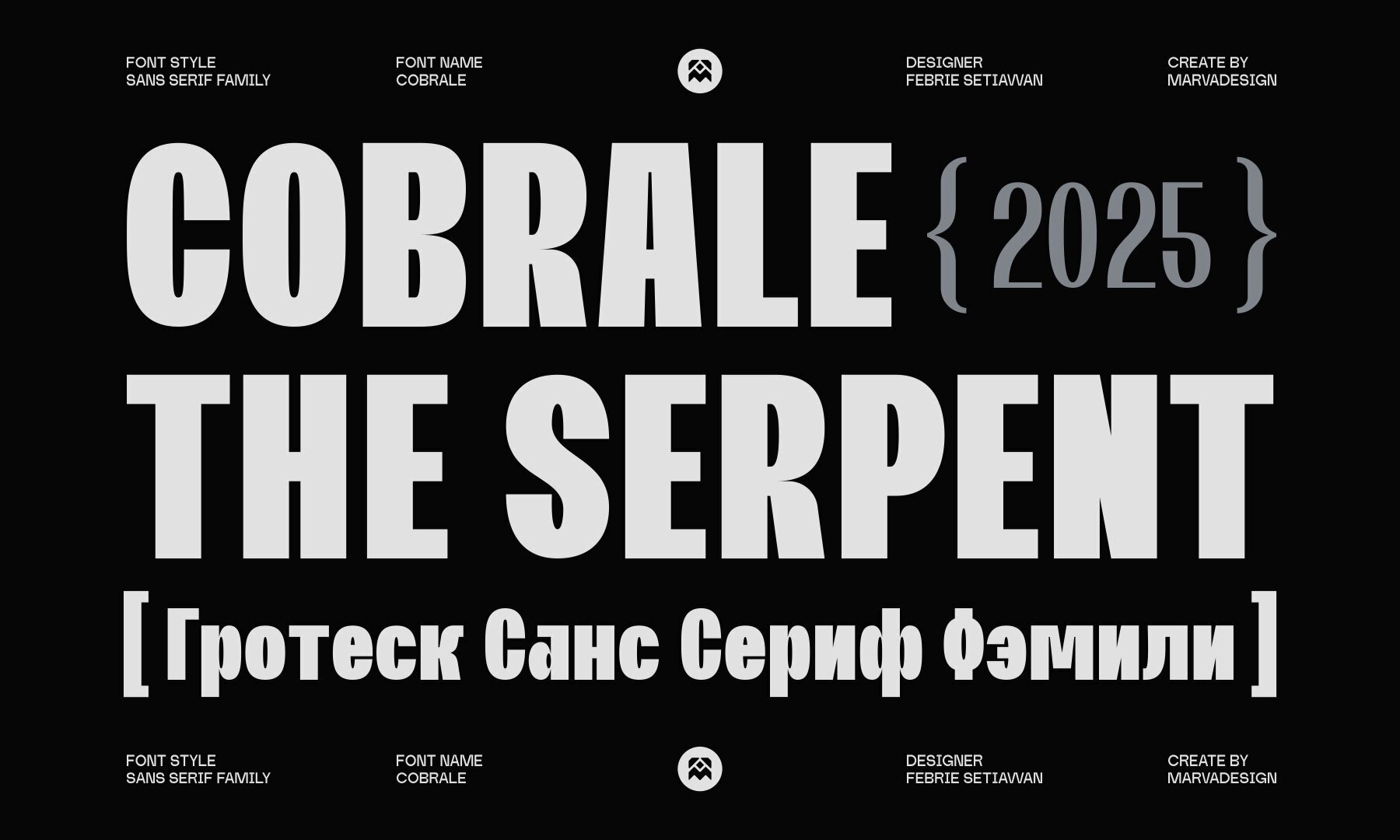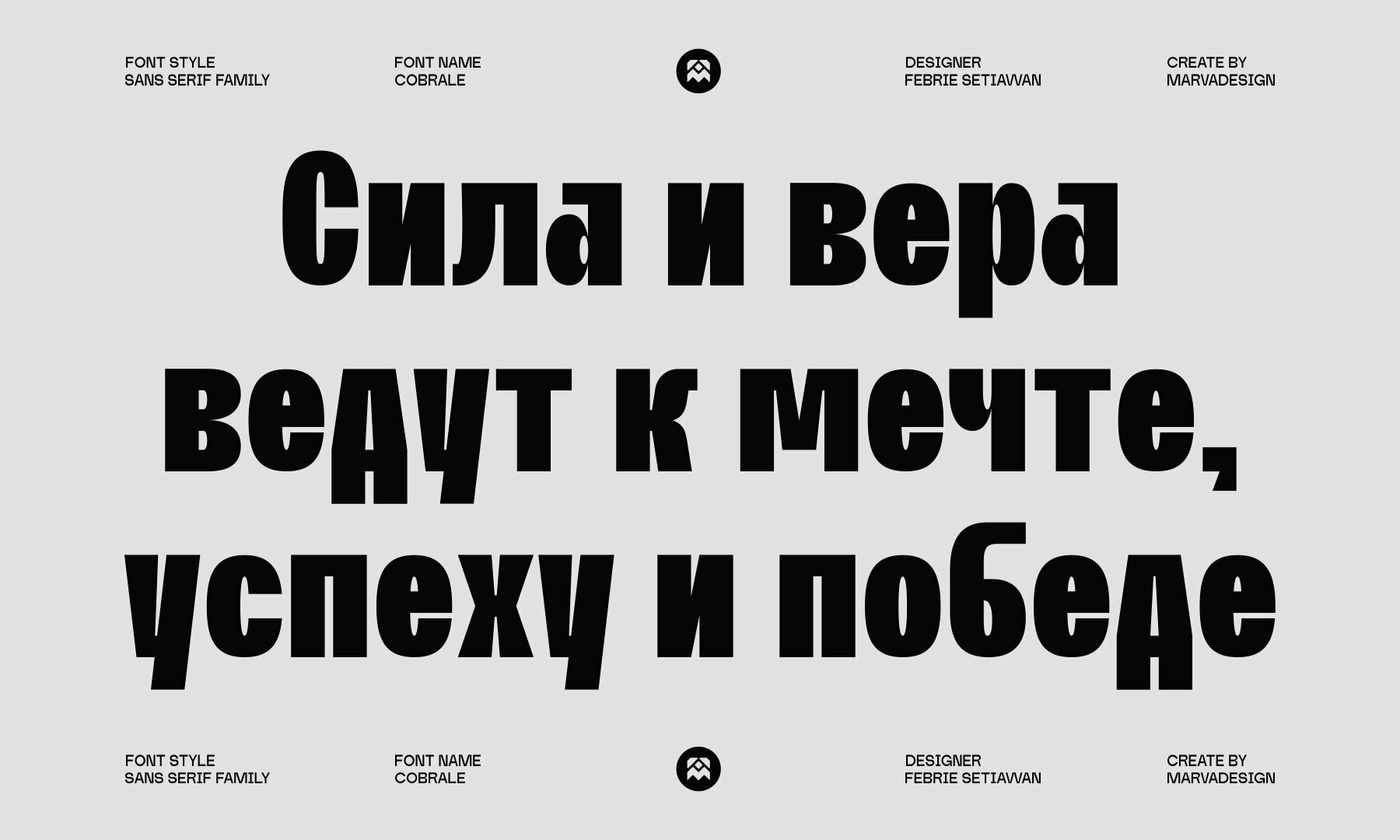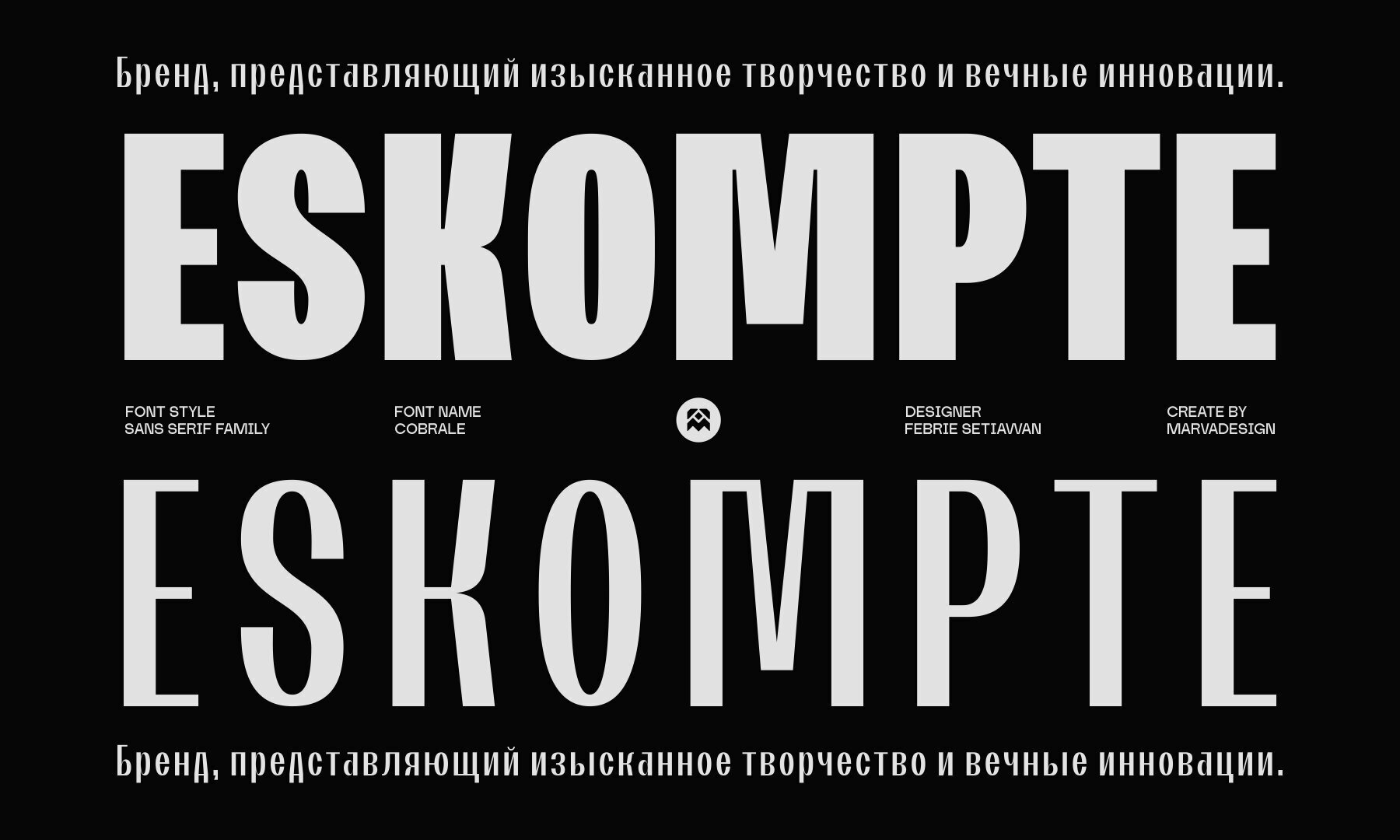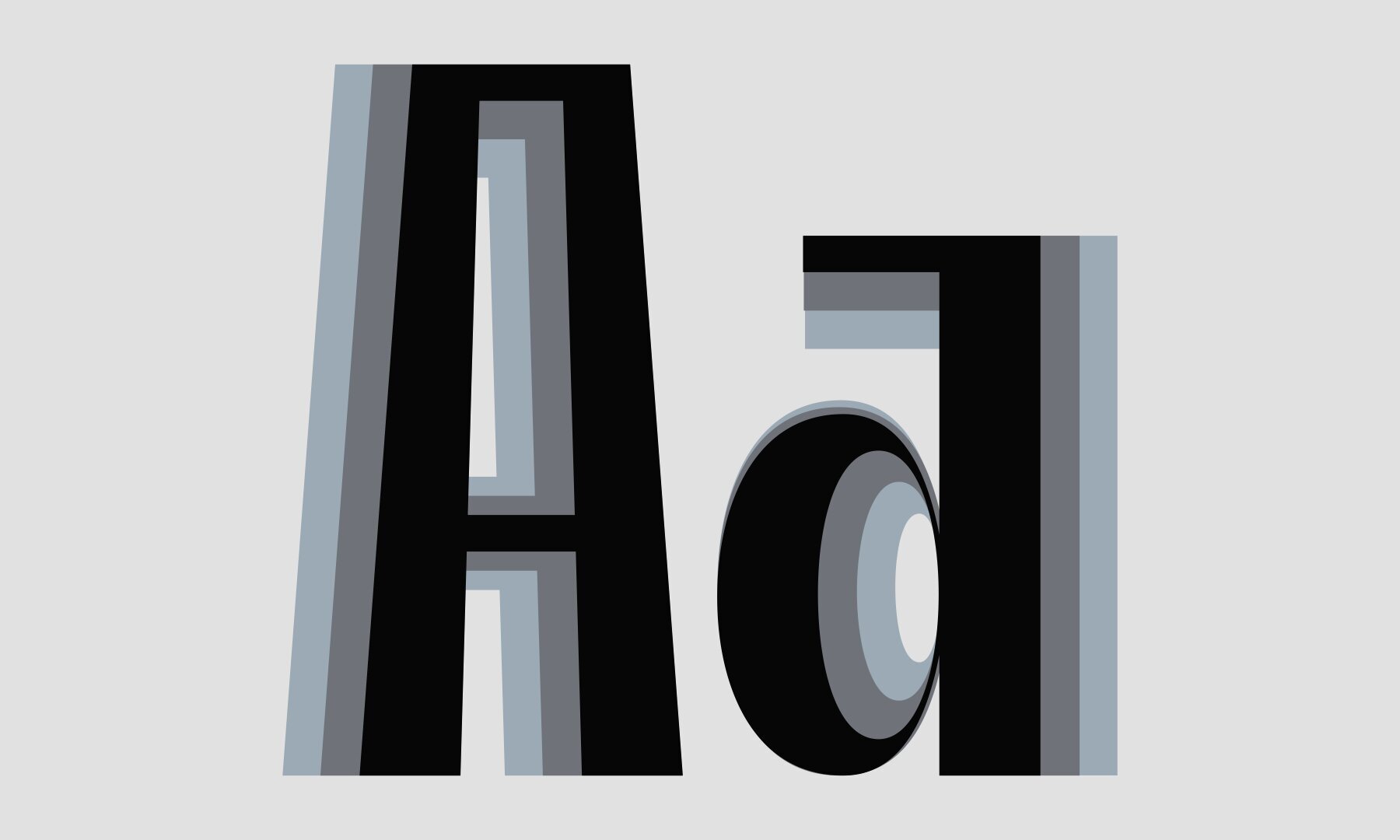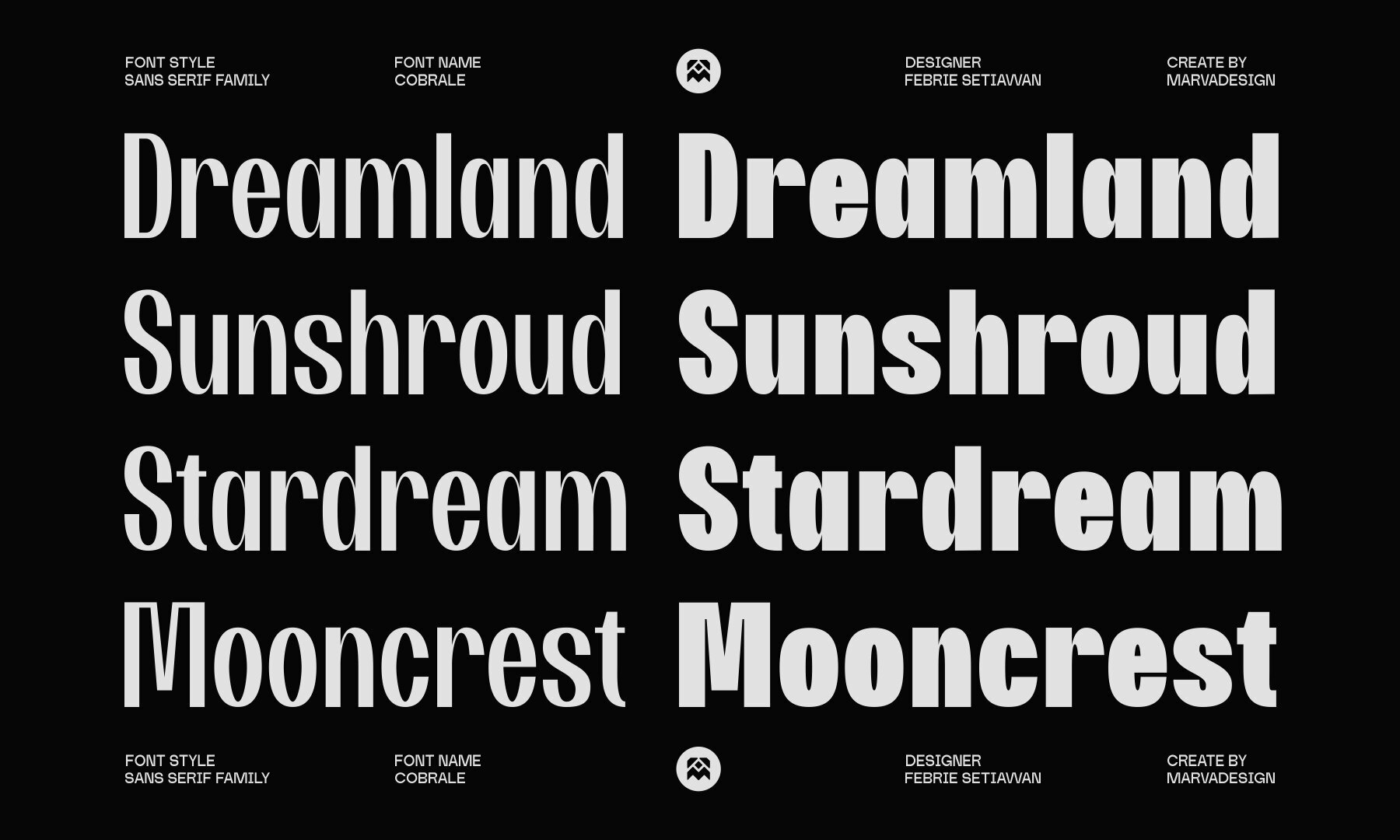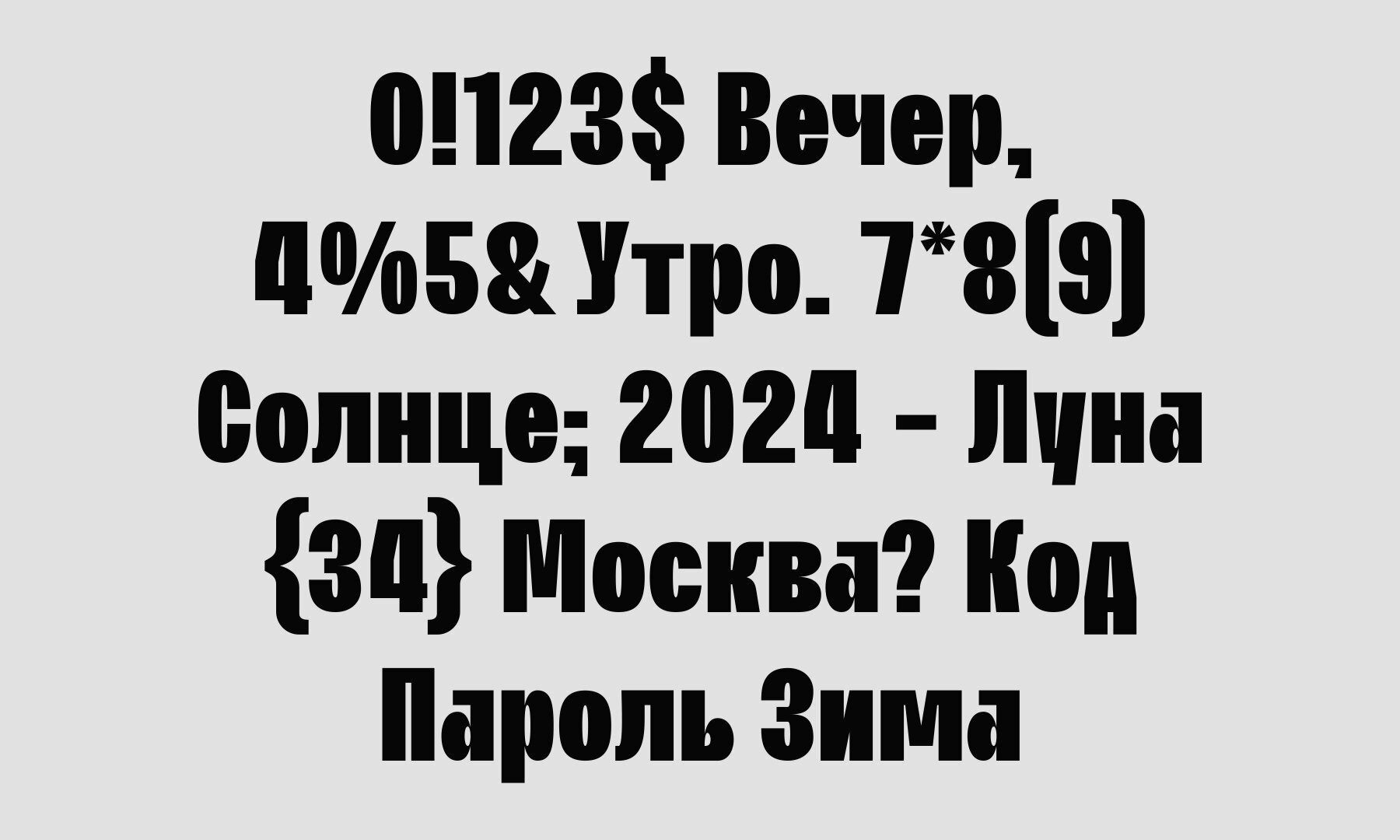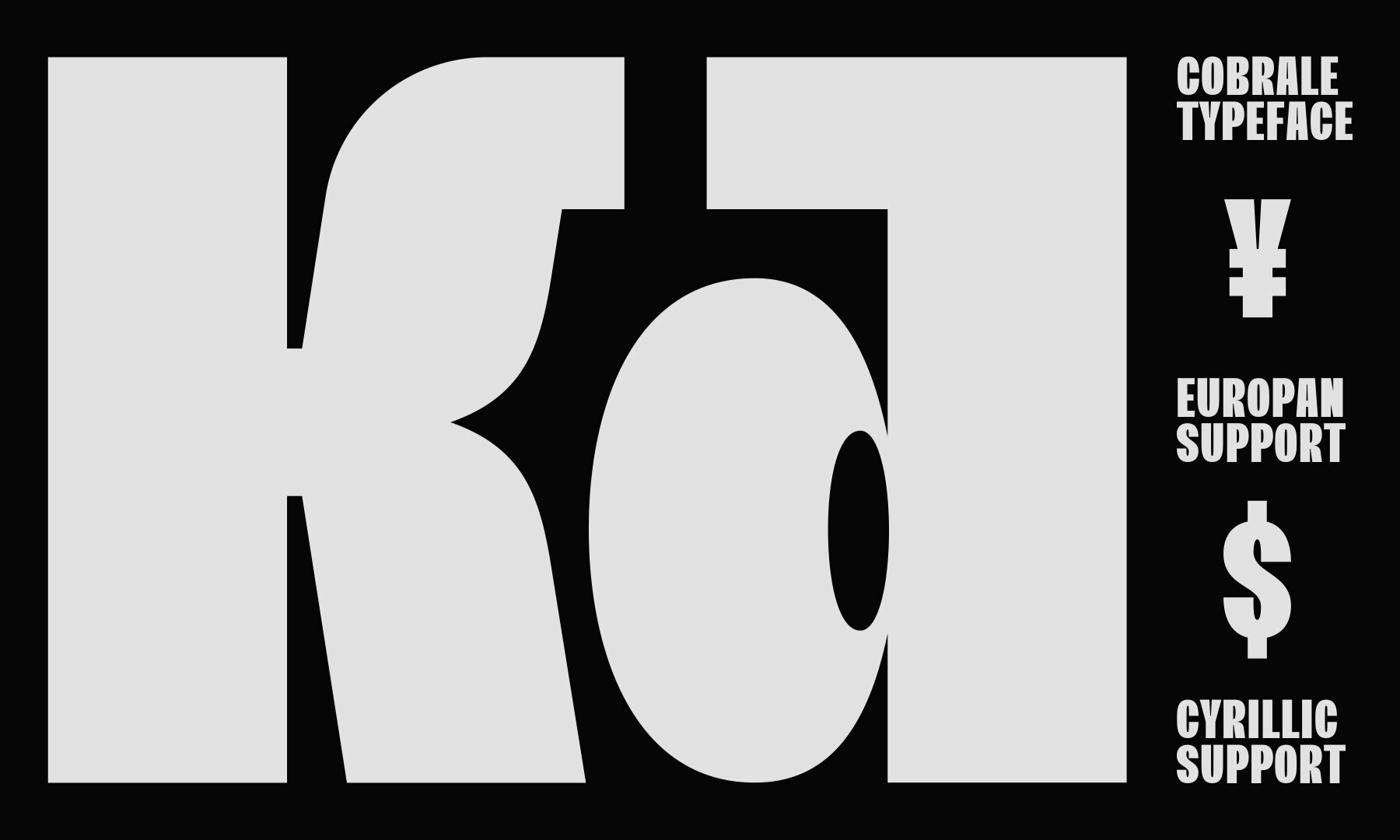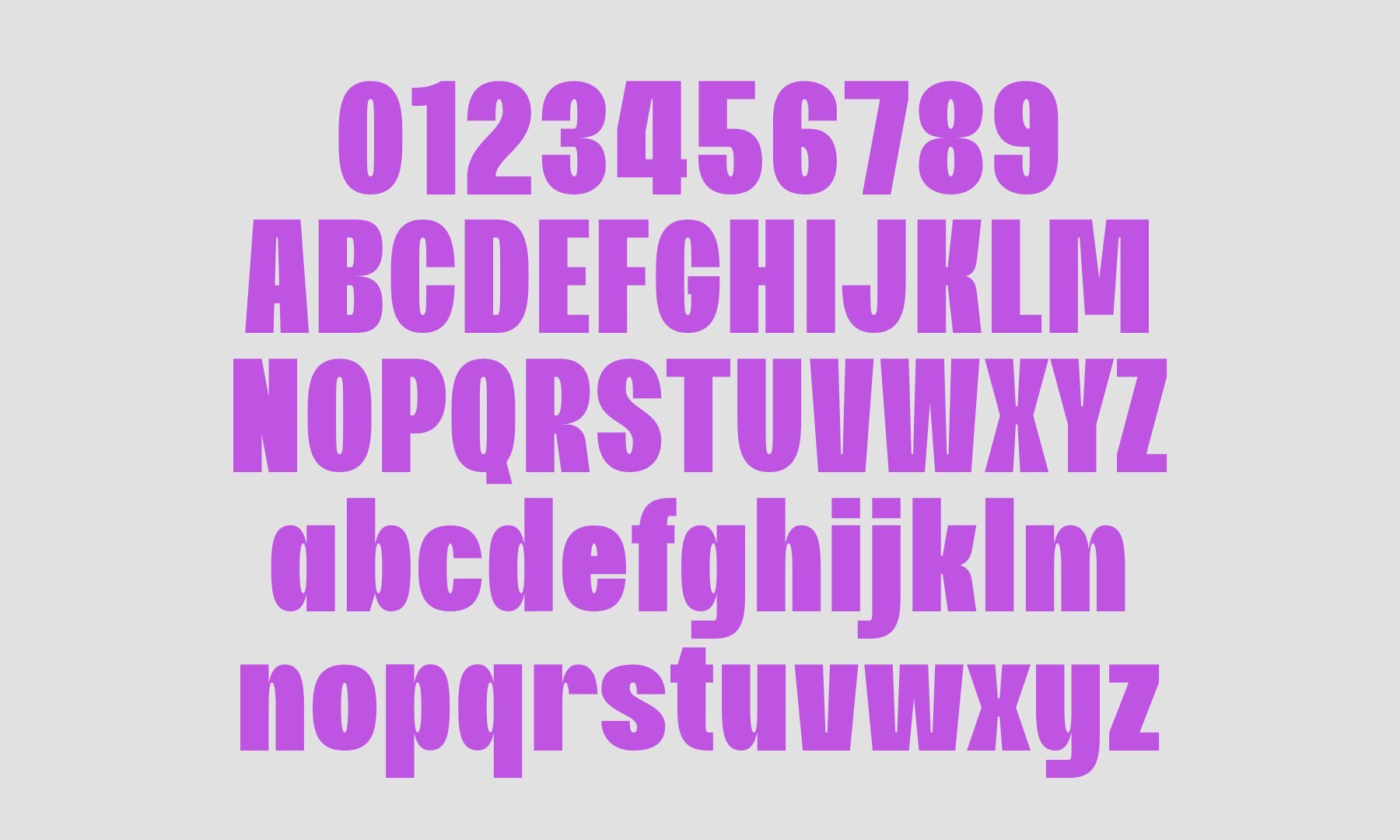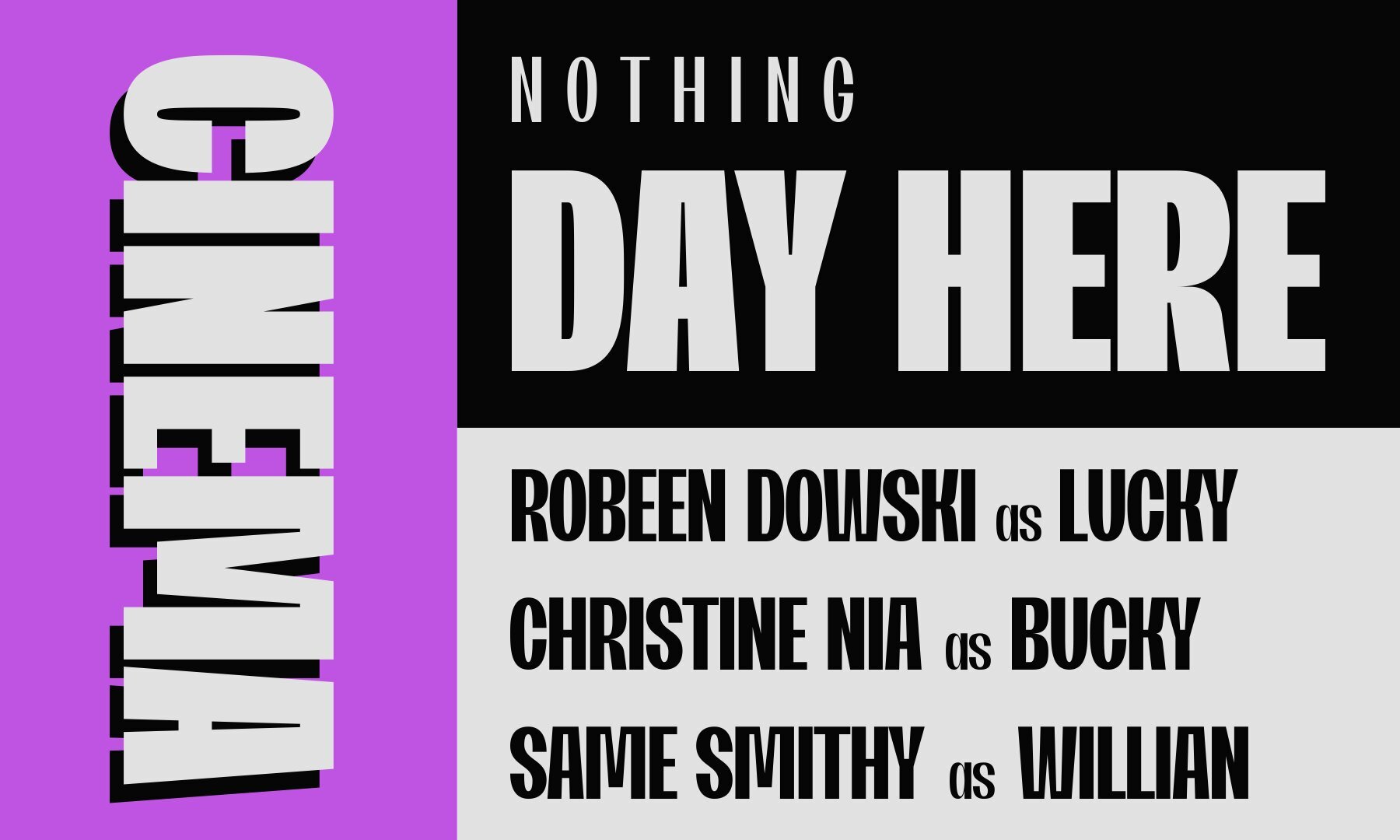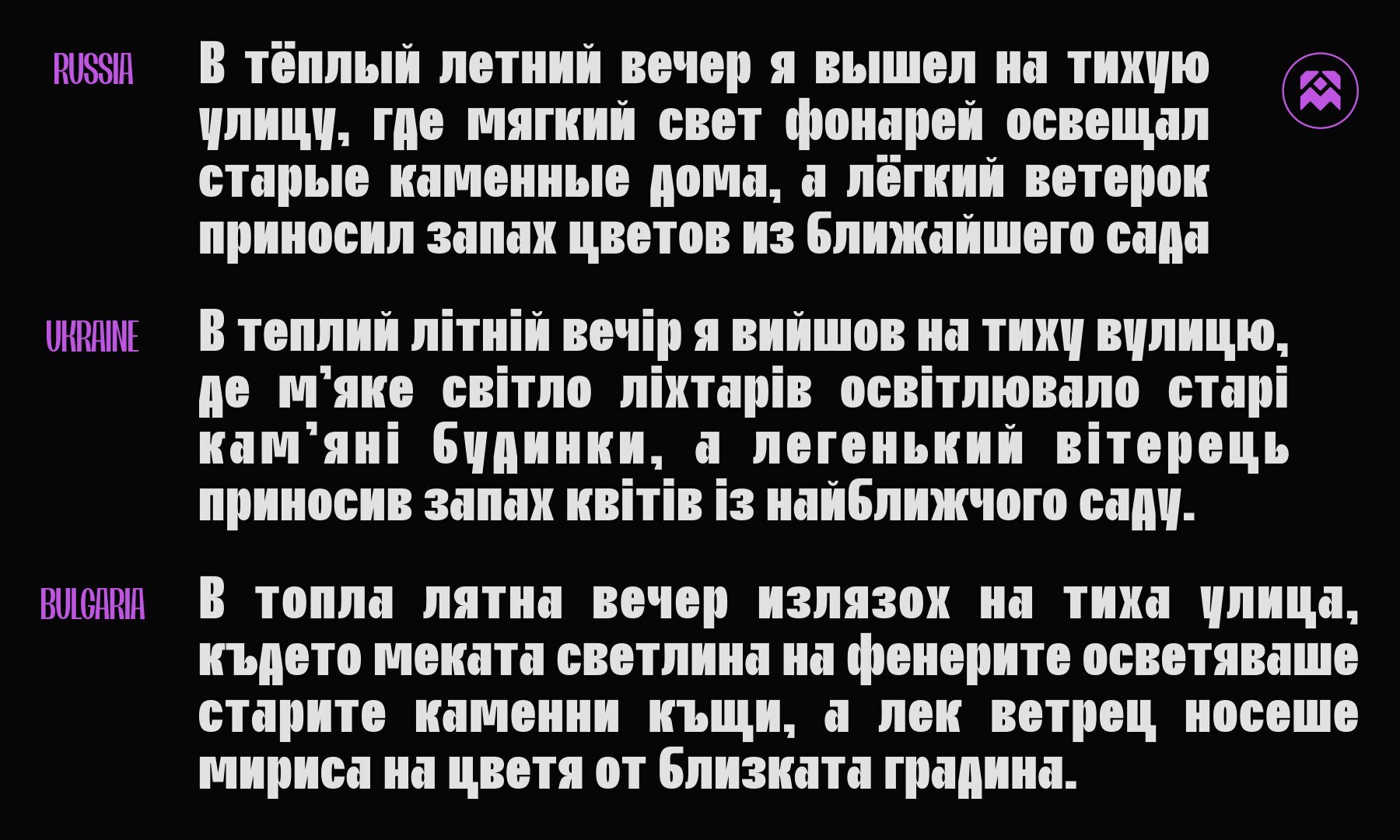
COBRALE Font
Cobrale is a dynamic sans-serif font family that marries bold expression with sharp versatility. Designed in three distinct styles—Regular, Medium, and Bold—it offers the flexibility required for diverse design projects, from minimal editorial layouts to impactful display headlines. This typeface boasts a clean grotesque character, combining strong geometric proportions with gentle curves, offering both strength and sophistication. Beyond the Latin alphabet, Cobrale supports the Cyrillic script, ensuring global usability—a perfect choice for branding, posters, packaging, and digital interfaces. With its commanding presence and timeless clarity, Cobrale encapsulates modern aesthetics and practical functionality. It skillfully balances creativity with professional precision, making it a valuable asset for any design endeavor.Cobrale: A Modern Typeface for Bold Design